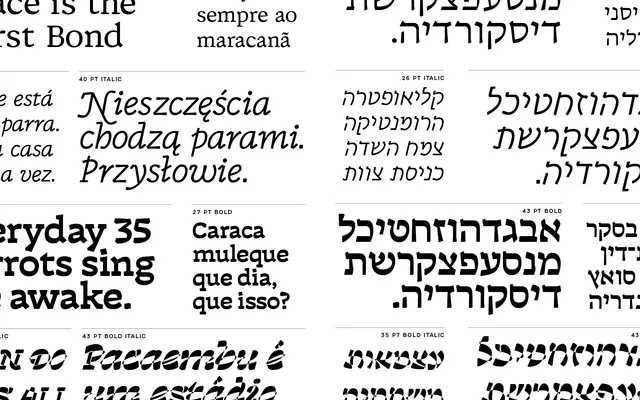
Discórdia
A four-style mini super-family in which each member uses a different contrast structure, allowing mixed-style setting across wedge-serif, slab, monoline and twisted variants in the same line.
Each of the four styles — Regular, Italic, Bold and Bold Italic — is built on a distinct contrast principle: broad-nib, monoline, horizontal slab and an intentionally distorted fourth. They are drawn to coexist in the same line, creating typographic hierarchy without changing typeface. The family covers Latin and Hebrew, with a deep OpenType feature set including swash capitals, oldstyle figures, fractions, alternates and justification alternates for Hebrew.
The Regular uses a wedge-serif structure with broad-nib contrast, the Bold shifts to horizontal slab-serif contrast, the Italic is a monoline sans-serif-ish cut, and the Bold Italic presents a twisted design — making this a multi-category super-family anchored by its serif Regular.